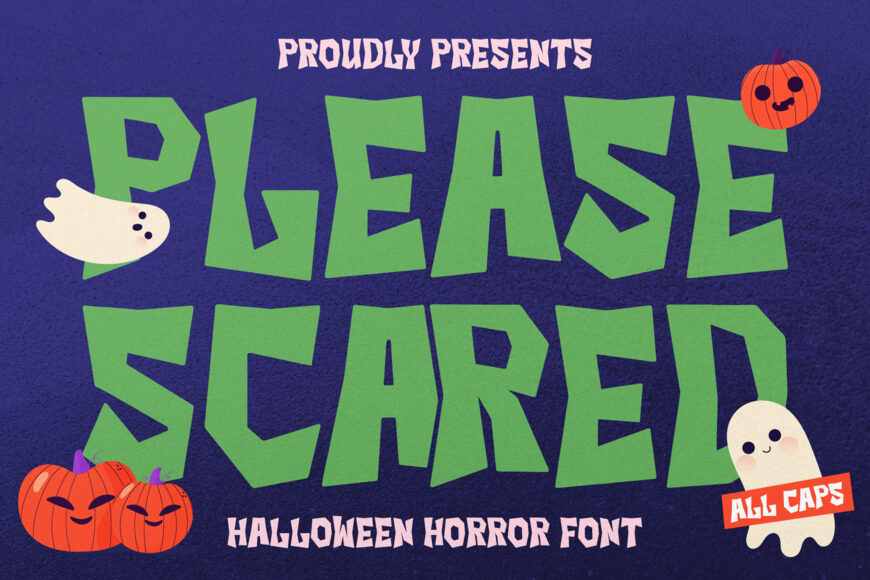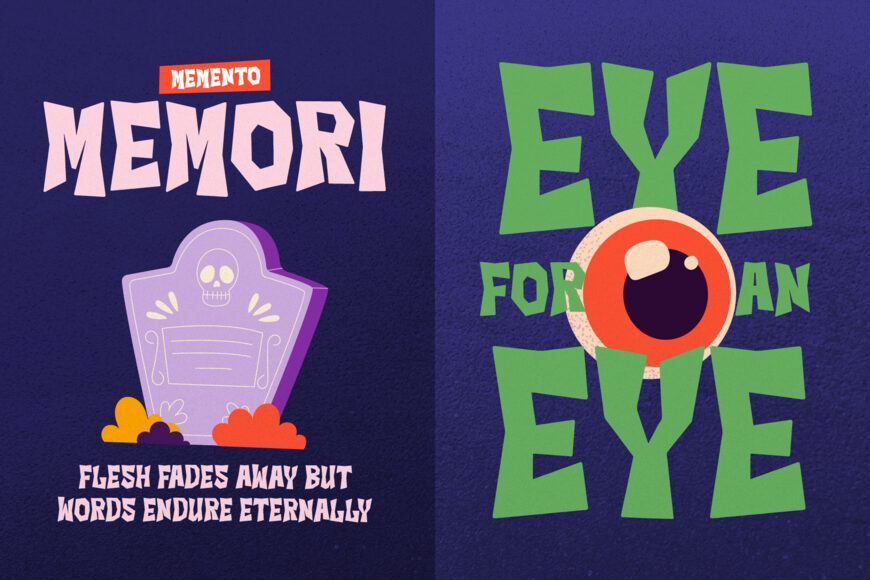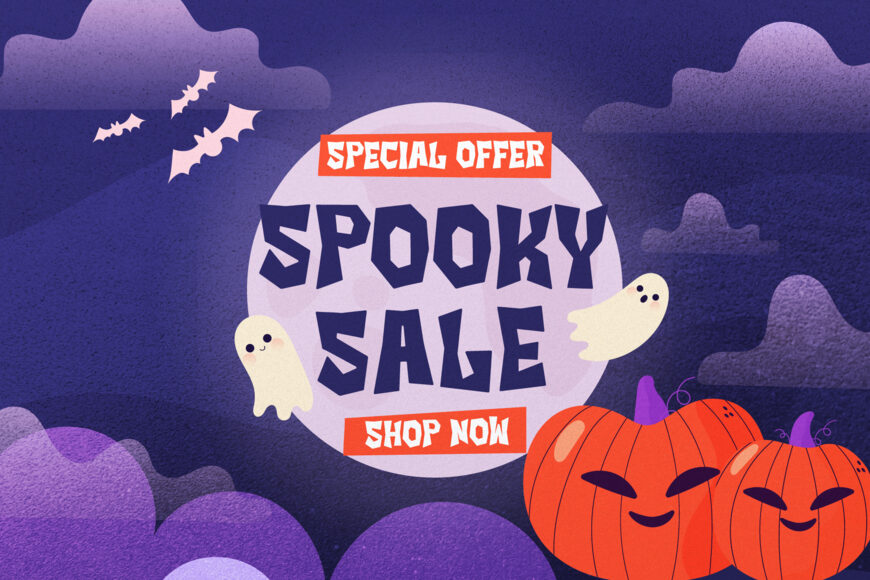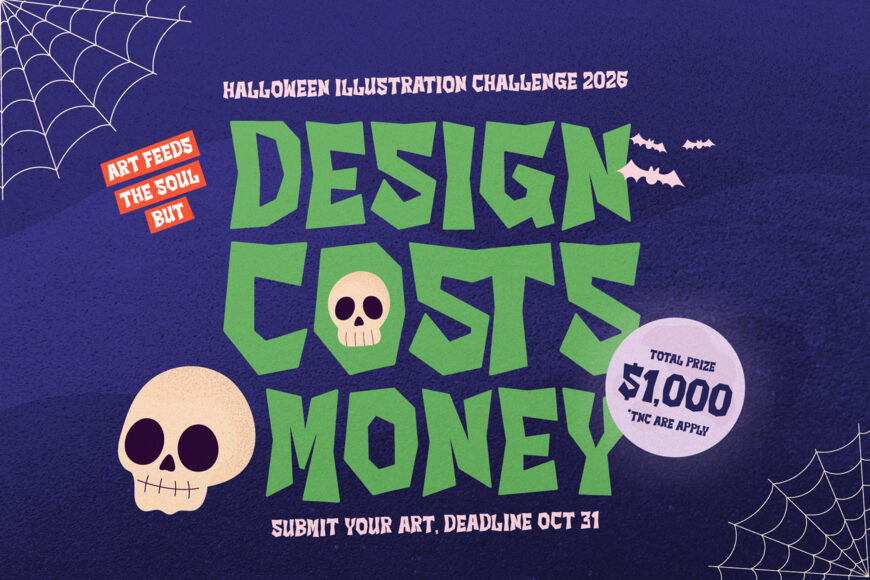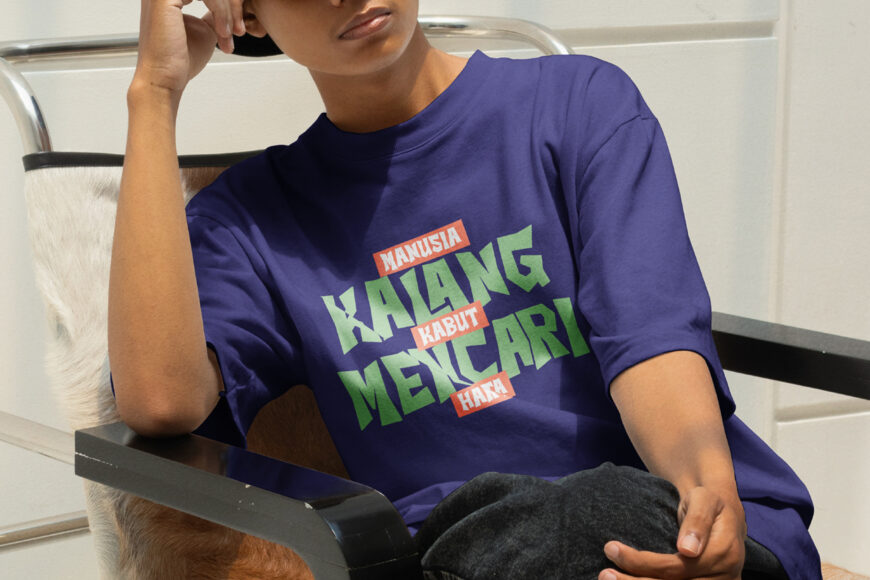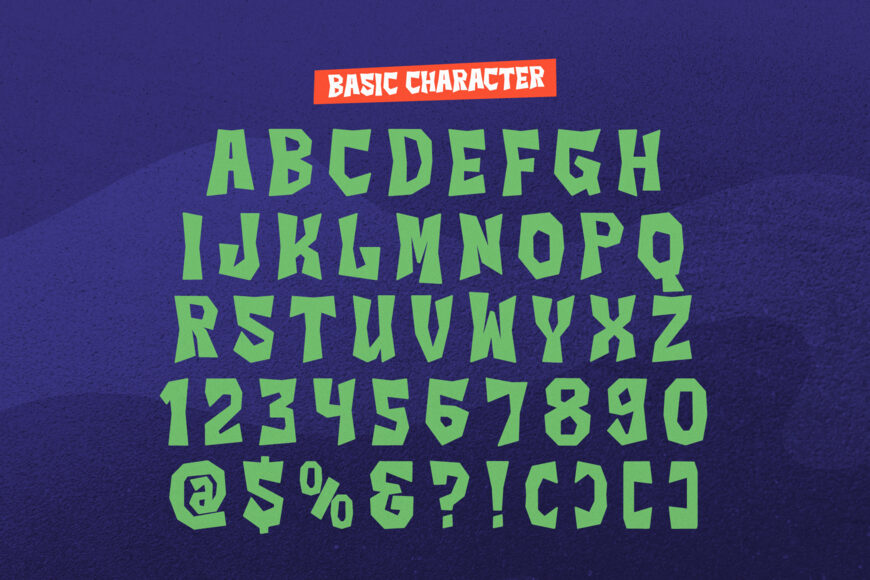
Bring spooky fun, monster-themed excitement, and playful horror vibes to your seasonal projects with Please Scared! Designed as an all-caps display font, it features chunky, jagged geometry, Frankenstein-inspired blocky silhouettes, and quirky, offset character cuts. Its bold, playful fright style commands attention while keeping things delightfully fun rather than overly terrifying.
Ideal for Halloween party invitations, spooky trick-or-treat packaging, kids’ costume party posters, haunted house flyers, seasonal t-shirt graphics, sticker sheets, and custom Cricut or Silhouette craft SVG creations!